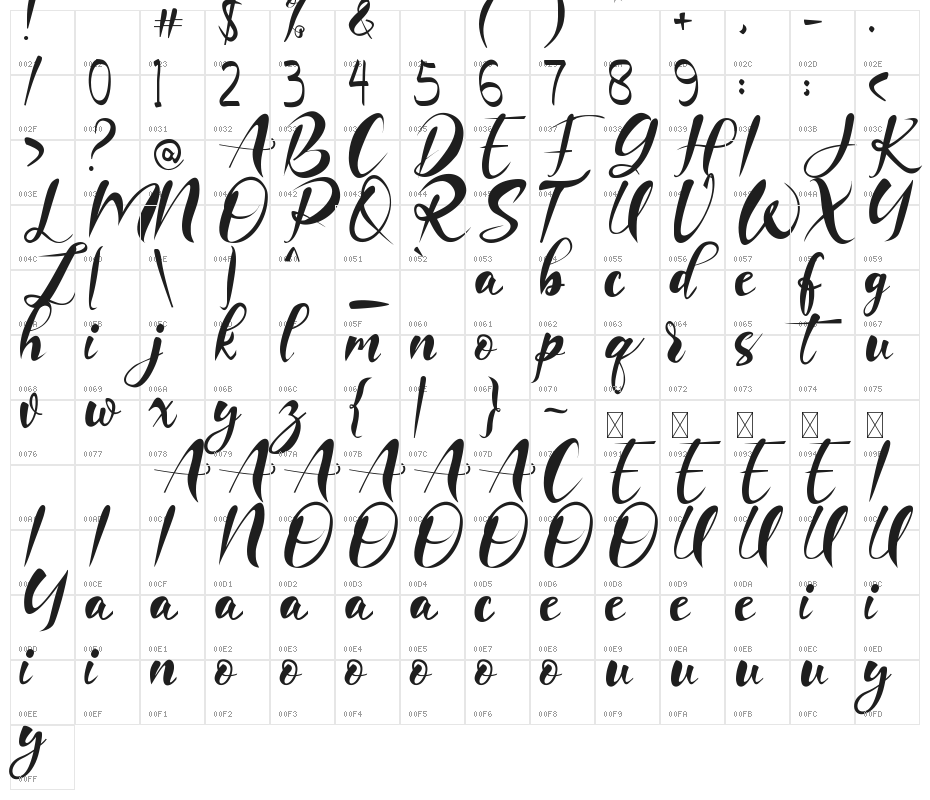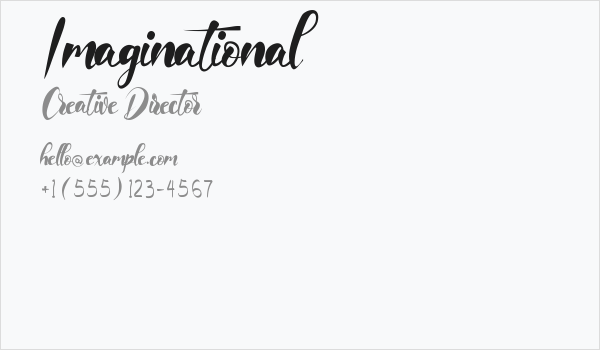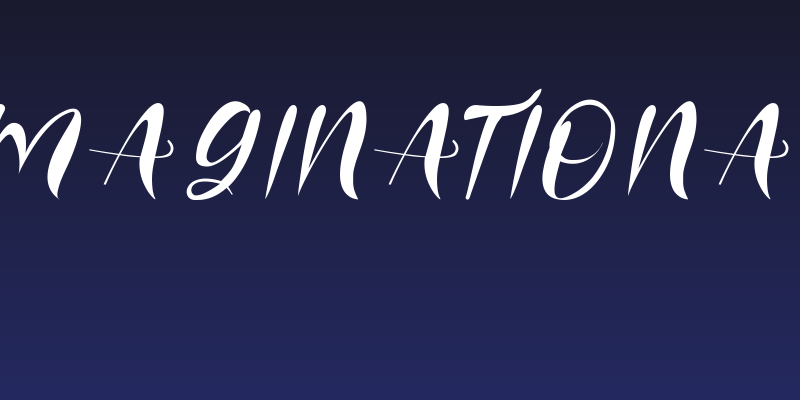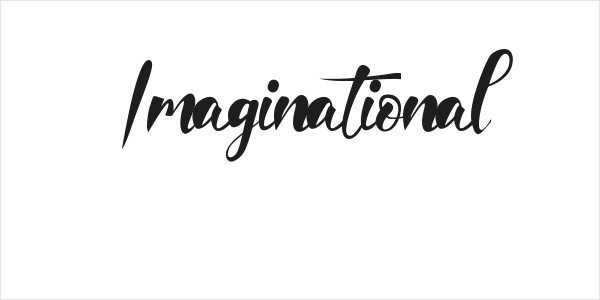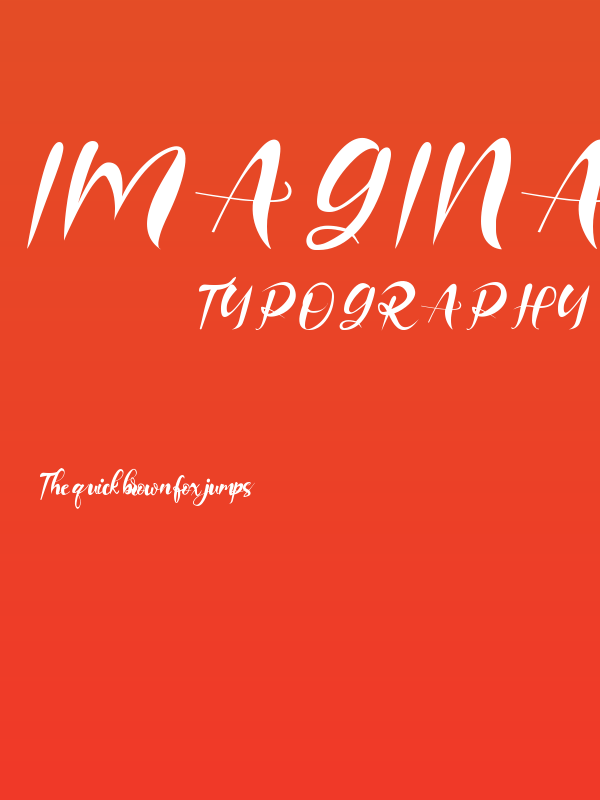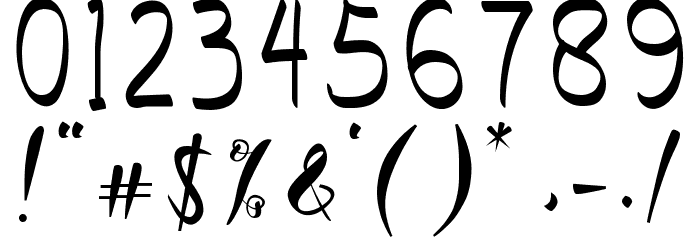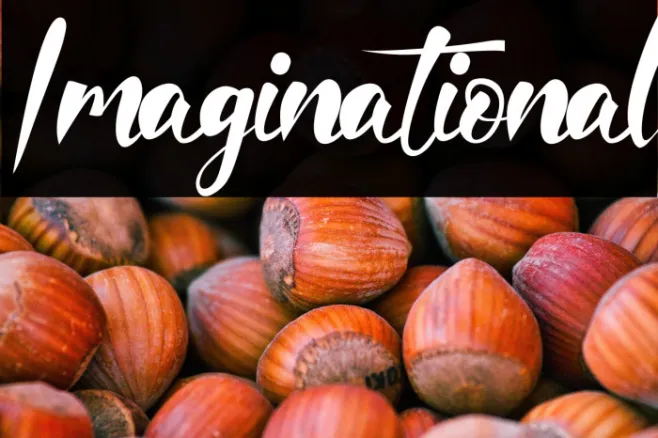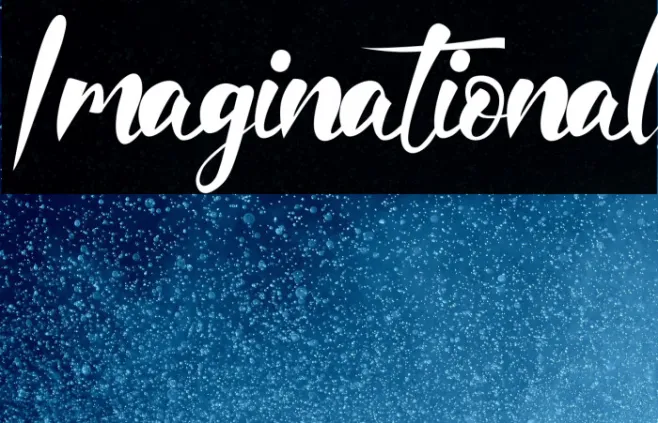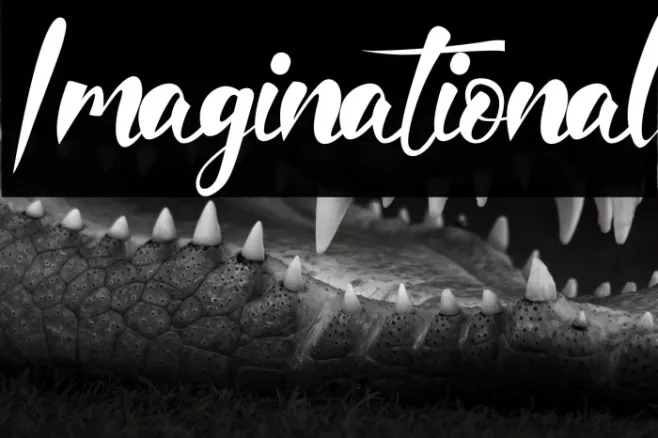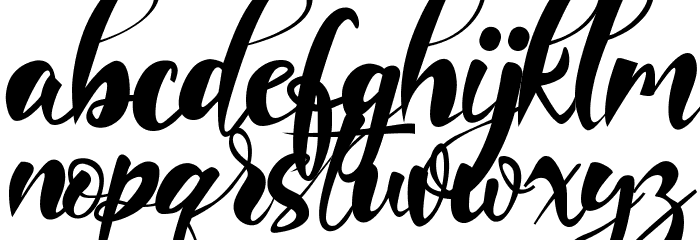
Imaginational Font
Imaginational Description
This font features a dynamic and flowing script style, characterized by its elegant and fluid letterforms. The uppercase letters exhibit a graceful, cursive appearance with sweeping lines and loops, while the lowercase letters maintain a consistent, connected flow. The numerals are distinct and maintain the same fluidity, adding to the cohesive look of the font. Special characters are designed to complement the overall aesthetic, making it suitable for creative and expressive design projects. The font's style is both modern and timeless, offering versatility for various applications.